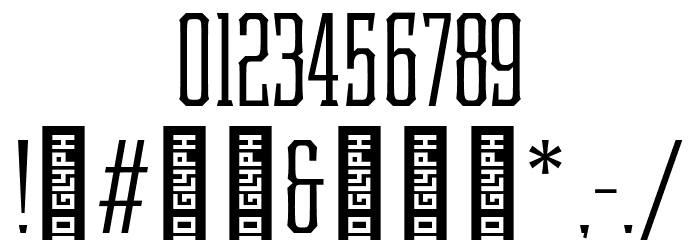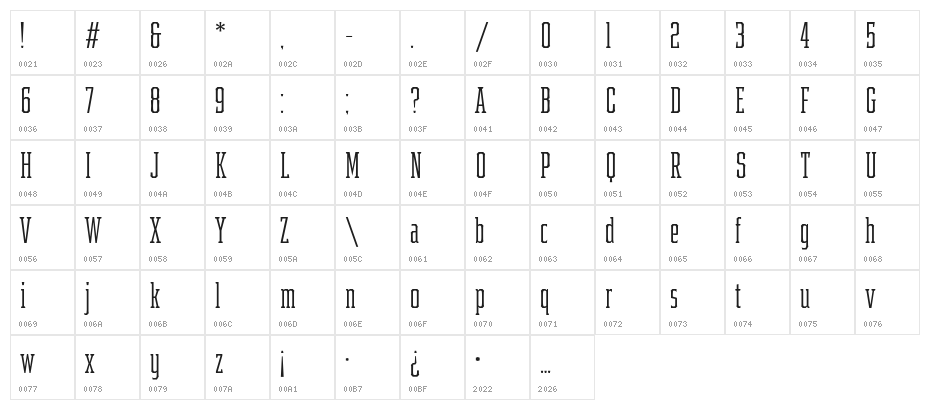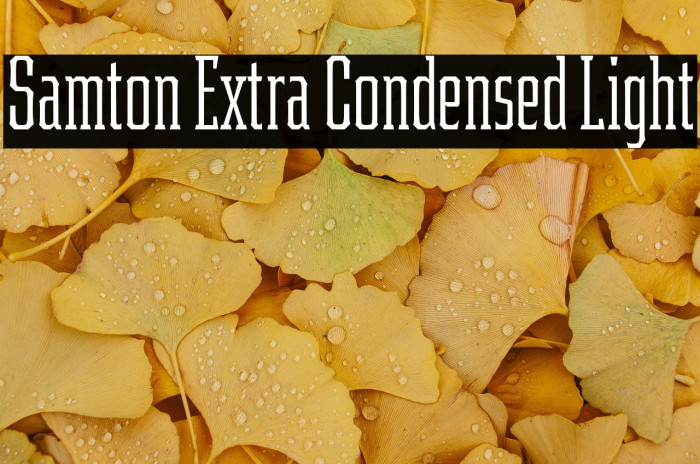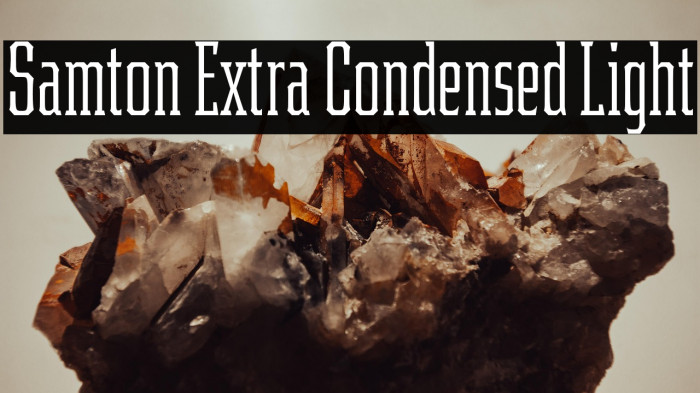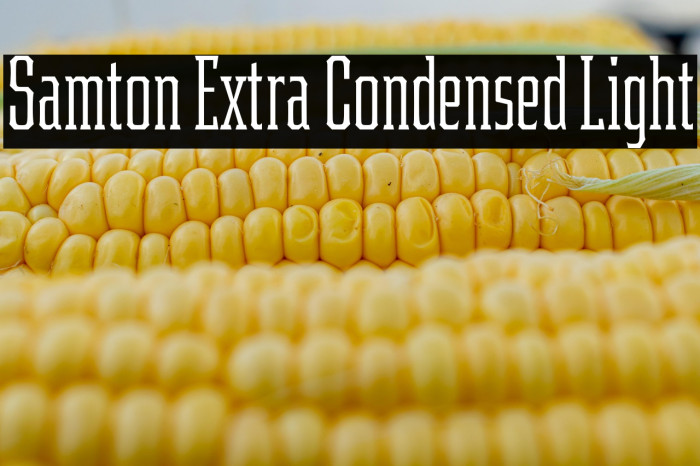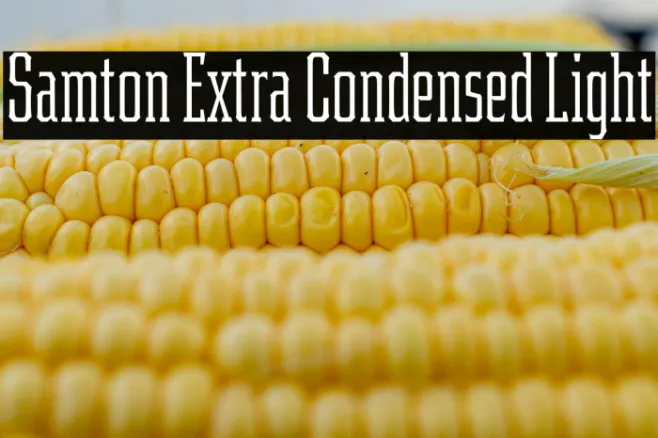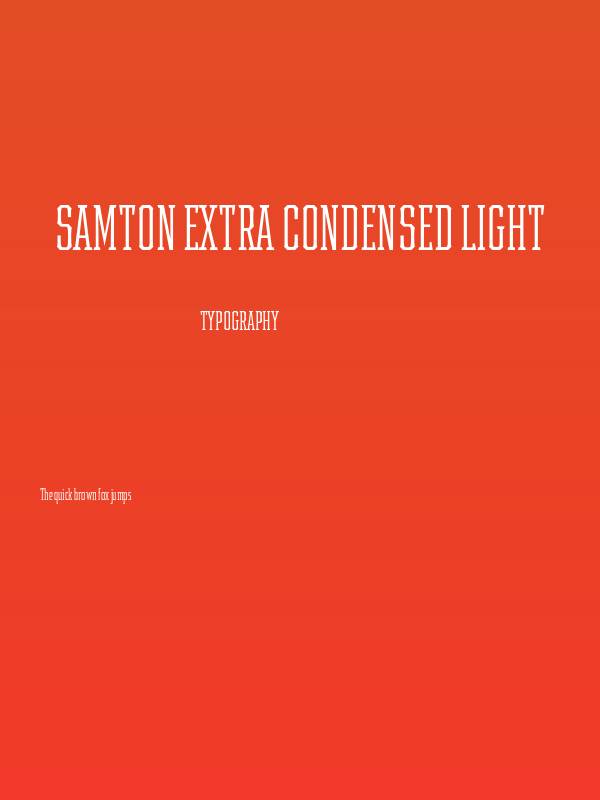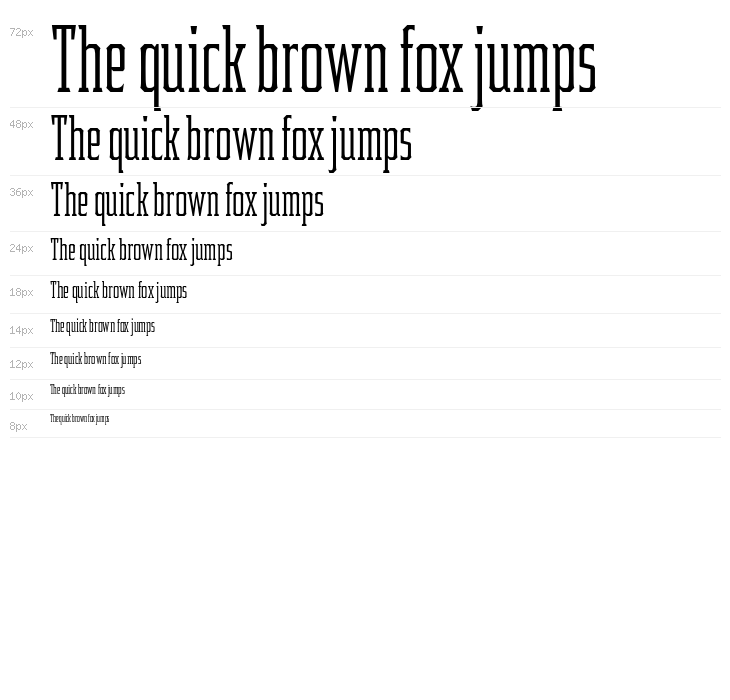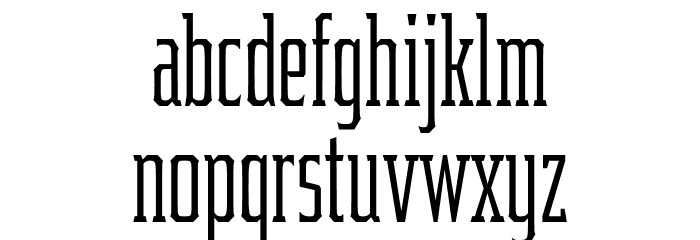
Samton Extra Condensed Light Font
Samton Extra Condensed Light Description
This font features a tall, narrow design with a distinct condensed style, making it ideal for space-saving applications. The characters have a uniform stroke width, contributing to a clean and modern appearance. The uppercase letters are particularly elongated, giving the font a sophisticated and elegant look. The lowercase letters maintain the same narrow proportions, ensuring consistency across text. The numerals are clear and legible, matching the overall style of the alphabet. Special characters are included, though some may be missing or represented as placeholders. This font's design is well-suited for projects requiring a sleek and contemporary aesthetic.
| Use Case | Headlines, Branding, Posters |
| Proposed Projects | Ideal for headlines, posters, and branding materials where space is limited and a modern look is desired. |